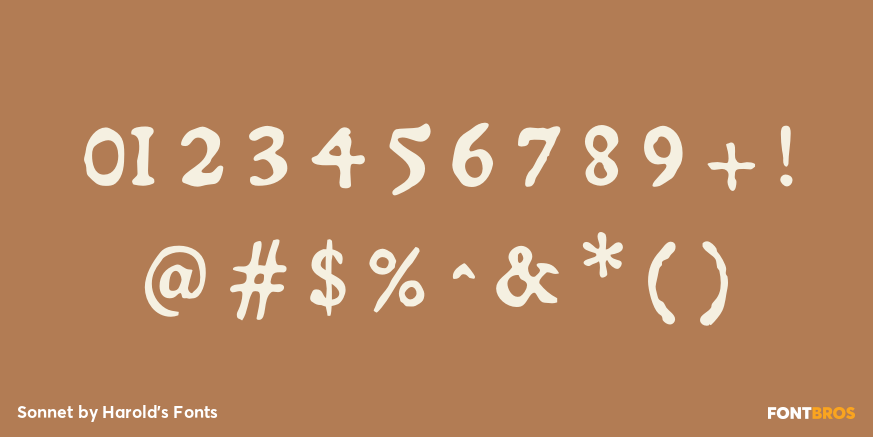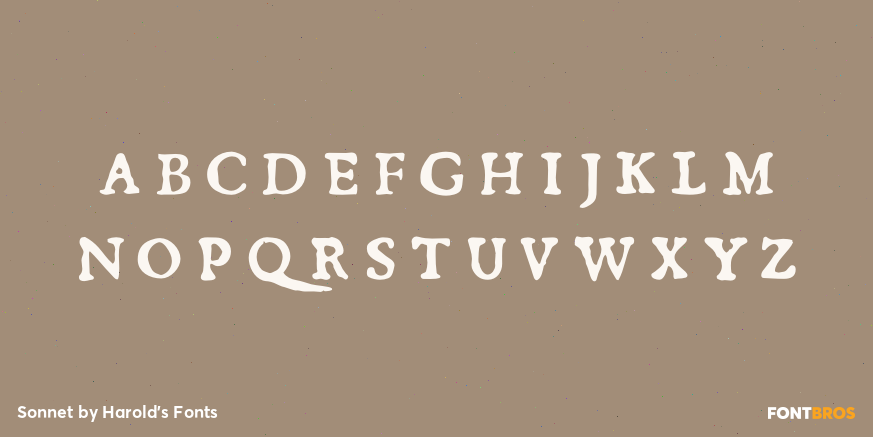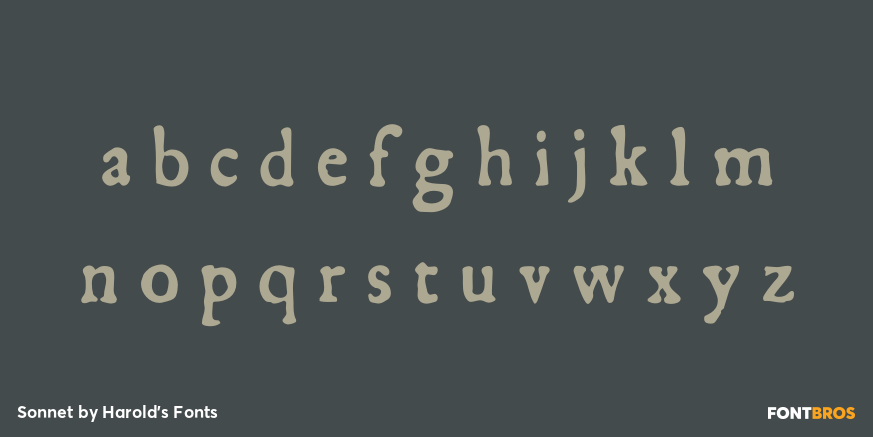
Sonnet
Font Family by Harold's Fonts
Buy NowSONNET is a set of fonts with the look of early letterpress printing; the bold and beautiful letter forms contrast with the roughness of the technology and paper of the time. This would be a good alternative to the overused and ahistoric Caslon Antique.
Sonnet was inspired by a facsimile of Shakespeare's First Folio as published by Thomas Thorpe in 1609. The full series includes many typographic features of the original, including italics, swash italics, small caps, old-style figures, long s, and more.
Version 2.0 makes use of Opentype features for easier use. Now the Regular font also includes the Small Caps, and the Italics font includes the Swash Caps, but these are also available separately if you prefer, especially if you need accented characters.